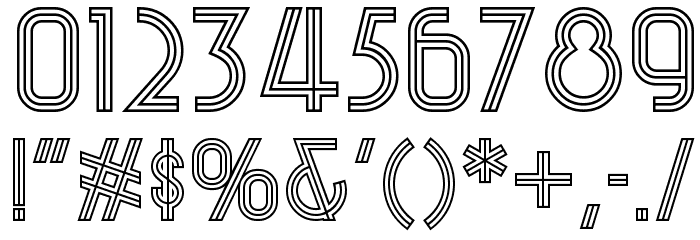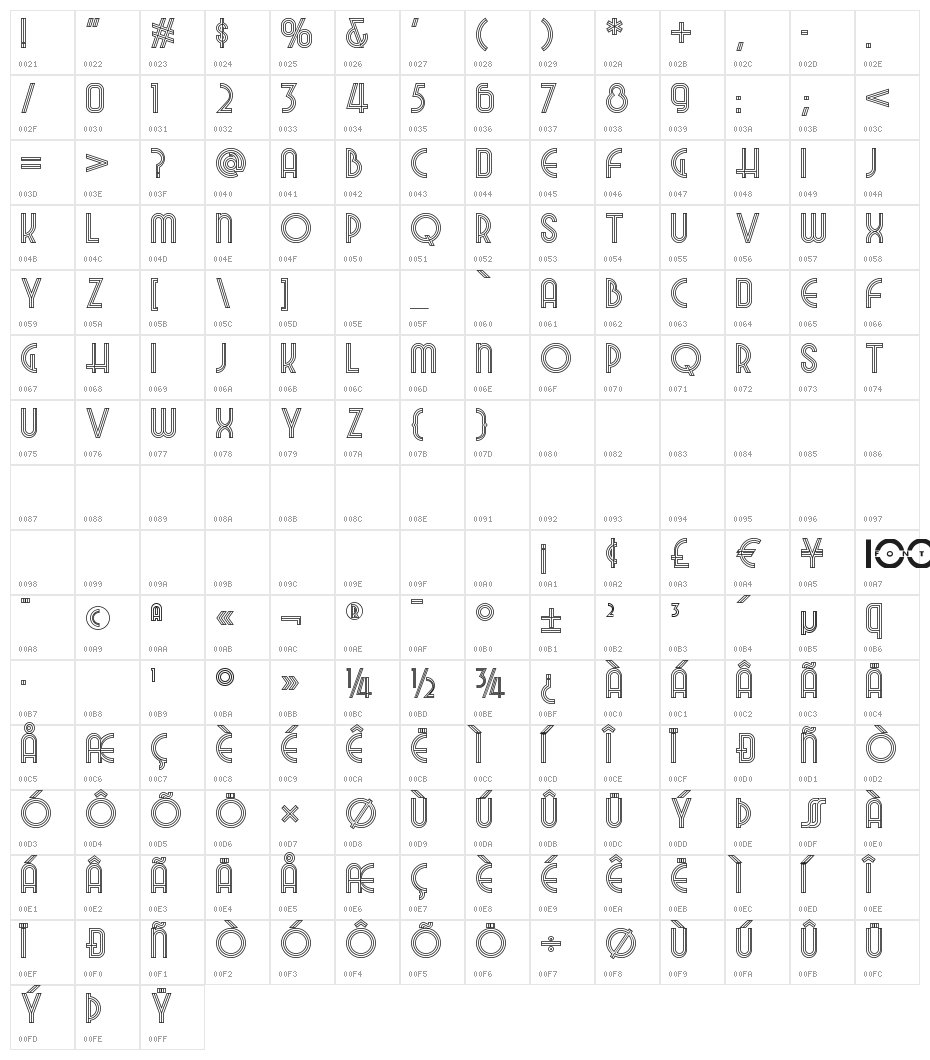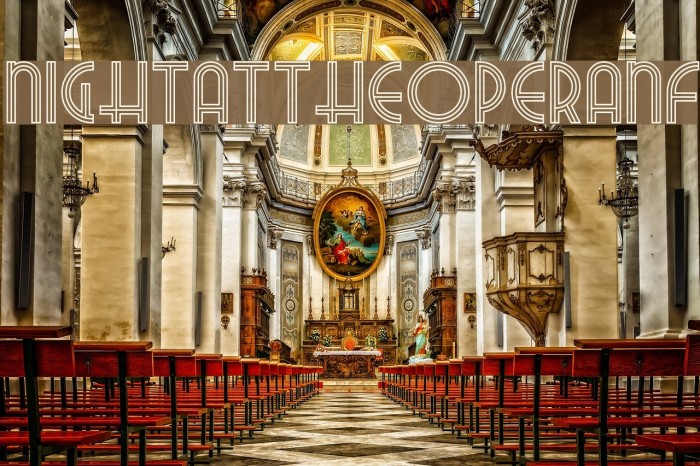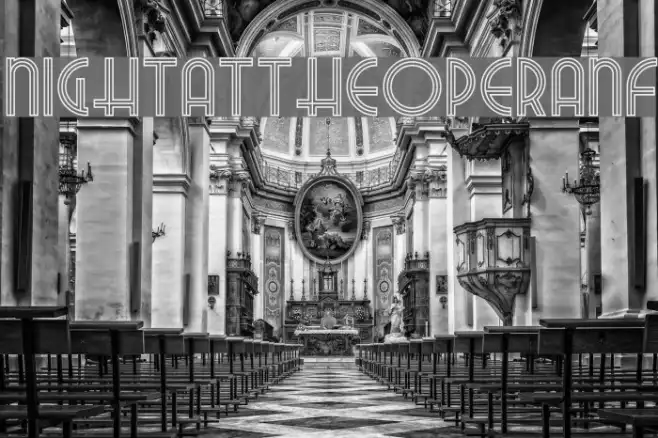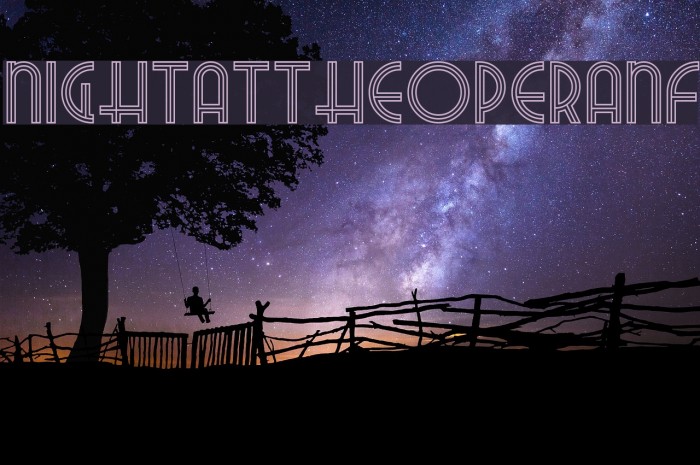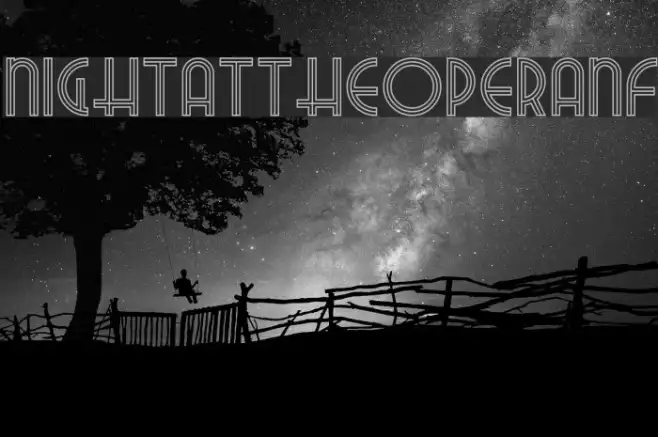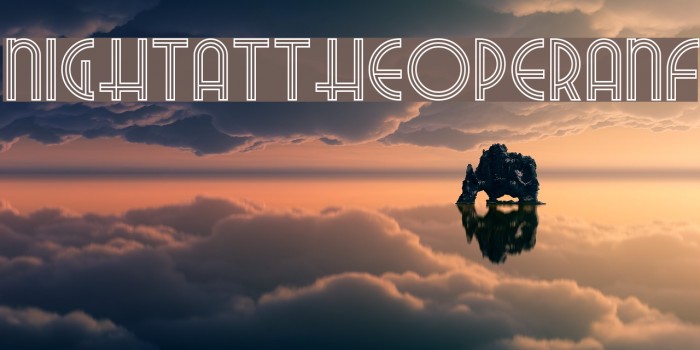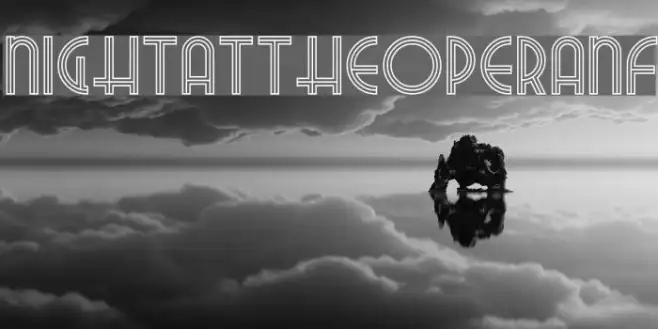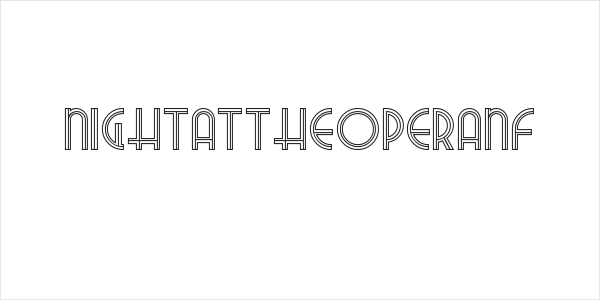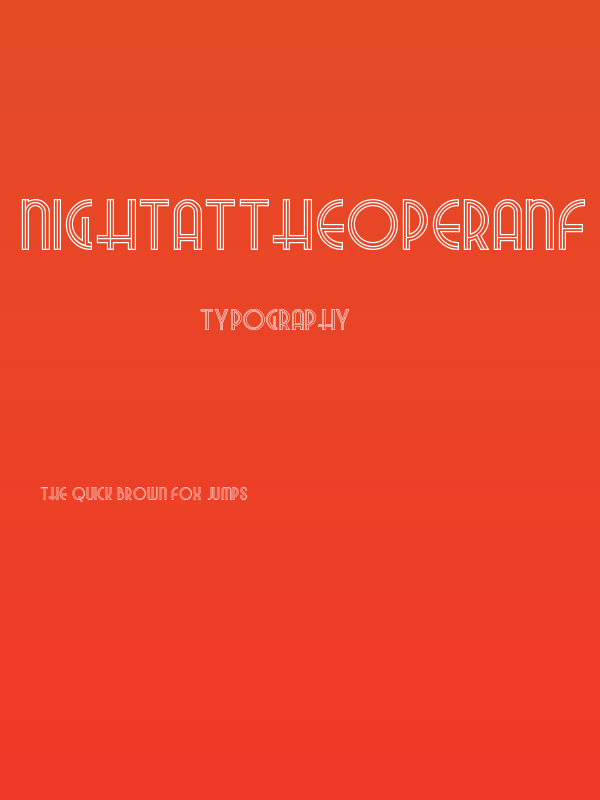
NightAtTheOperaNF Font
NightAtTheOperaNF Description
This font features a bold, geometric design with a distinct art deco influence. The characters are outlined, creating a hollow effect that adds a layer of sophistication and elegance. Each letter is constructed with clean, straight lines and sharp angles, giving it a modern and stylish appearance. The uniformity in stroke width across all characters contributes to a cohesive and balanced look. The font's unique style makes it suitable for projects that require a touch of vintage glamour or a contemporary twist on classic design elements.
| Overall Style | Vintage, Modern |
| Proposed Projects | Ideal for branding, posters, invitations, and any design that seeks a vintage or modern art deco aesthetic. |